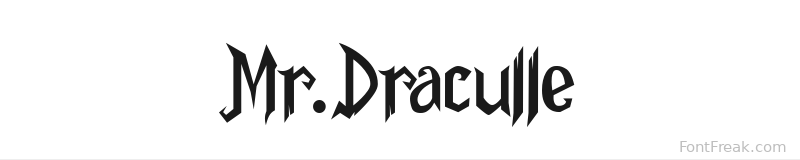
Mr.Draculle
Mr.Draculle by Kong Font is a striking display typeface that embodies a dramatic flair, making it an excellent choice for various creative projects. This decorative font features sharp, angular strokes that evoke a gothic aesthetic, reminiscent of classic horror themes. The stroke weight is bold and uneven, providing a sense of urgency and intensity that draws the eye. The high contrast between thick and thin lines accentuates its theatrical character, while the spacing is thoughtfully designed to maintain readability, ensuring that it captivates without overwhelming.
Ideal for use in movie posters, Halloween-themed events, or book covers, Mr.Draculle seamlessly integrates into projects that aim to evoke mystery and intrigue. Its unique characteristics also lend themselves well to restaurant menus that focus on an edgy or avant-garde culinary experience, as well as promotional materials for gothic-themed events or festivals. Graphic designers and content creators will find this font particularly appealing due to its versatility and distinctive personality, making it a standout choice for branding and marketing efforts.